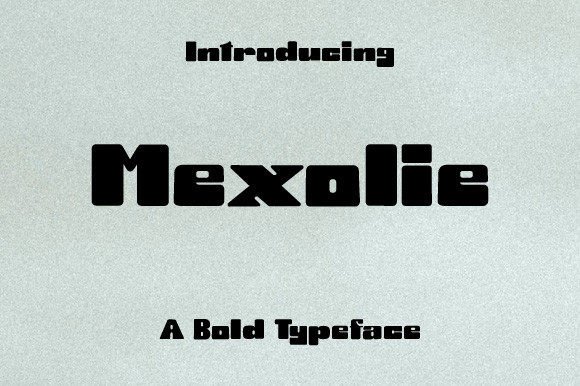
Journey into the world of exceptional typography with Mexolie Font, a display font that captivates and enthralls. Its bold and commanding presence elevates any design, making it an ideal choice for printing, screen printing, posters, banners, social media, logos, and countless other creative endeavors.
Mexolie Font is the brainchild of Wisnoetype Co., a renowned font foundry dedicated to crafting typefaces that resonate with emotion and purpose. With Mexolie, they have created a font that exudes strength and confidence, leaving a lasting impression on your audience.
Embrace the boundless possibilities of Mexolie Font and embark on a creative voyage that knows no limits. Its versatility shines through in its ability to transform ordinary designs into extraordinary masterpieces. Whether you're a seasoned designer or just starting your creative journey, Mexolie Font is your trusted companion, guiding you toward exceptional results.
Immerse yourself in the world of visual storytelling with Mexolie Font. Its bold strokes command attention, while its meticulously crafted curves add a touch of elegance and sophistication. Let your imagination run wild as you explore the endless possibilities of this remarkable font.
With Mexolie Font, your designs will captivate and inspire, leaving an indelible mark on your audience's minds. Its timeless beauty transcends trends, ensuring that your creations remain relevant and impactful for years to come.
Don't settle for ordinary fonts that blend into the background. Choose Mexolie Font and unleash a new era of creative expression. Its bold and captivating presence will leave your audience spellbound, ensuring that your designs stand out from the crowd.
Elevate your designs to new heights with Mexolie Font. Its versatility, emotional impact, and timeless appeal make it the perfect choice for designers seeking to leave a lasting impression. Embrace the power of bold typography and watch your creations come to life with Mexolie Font.